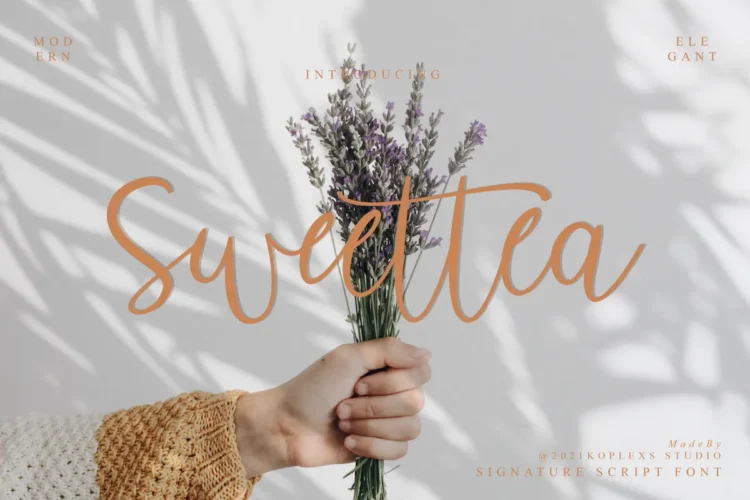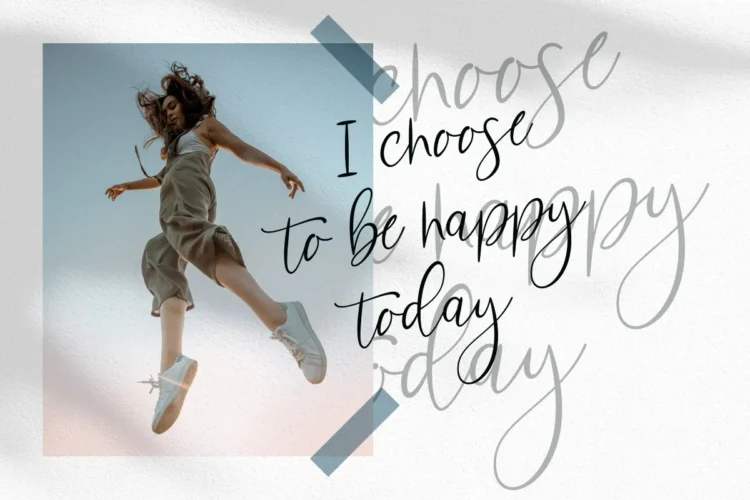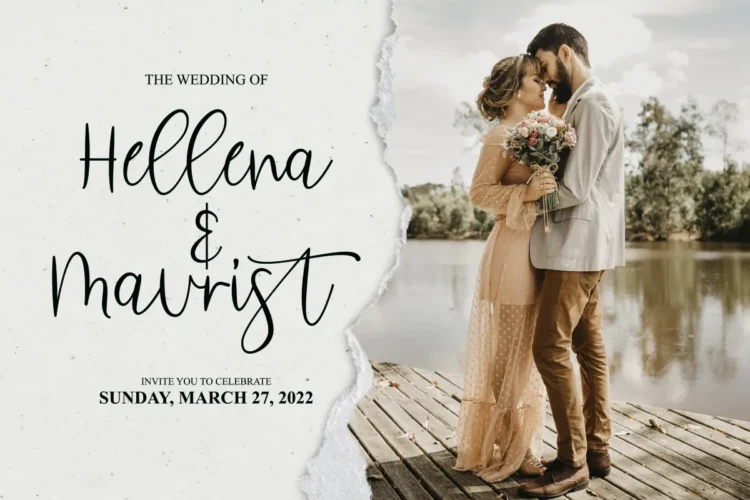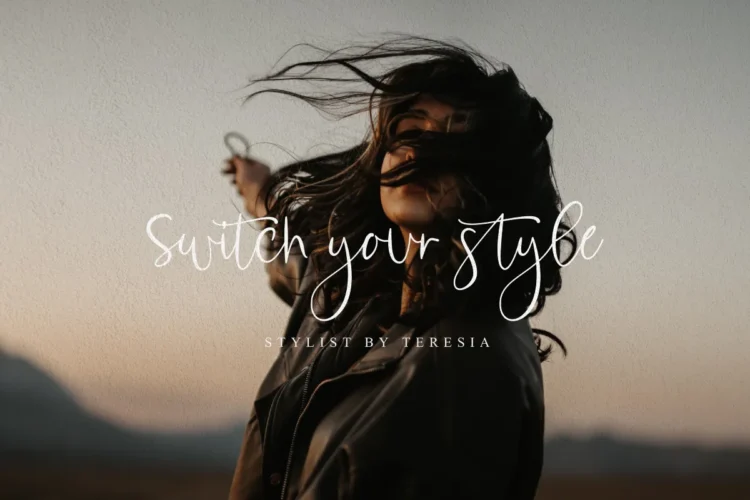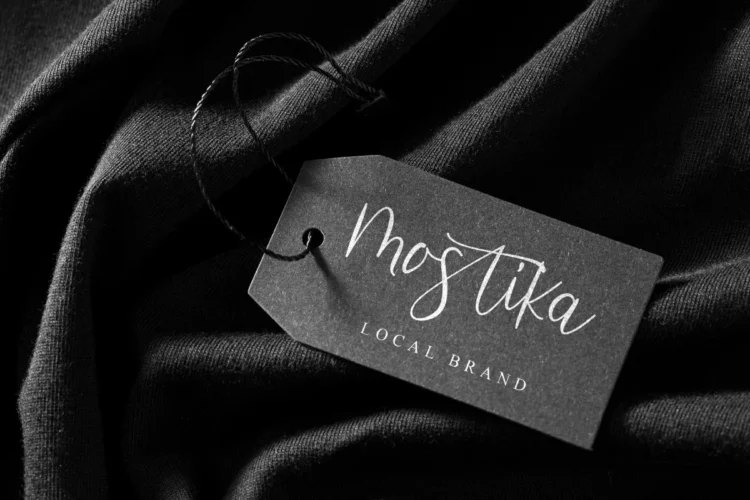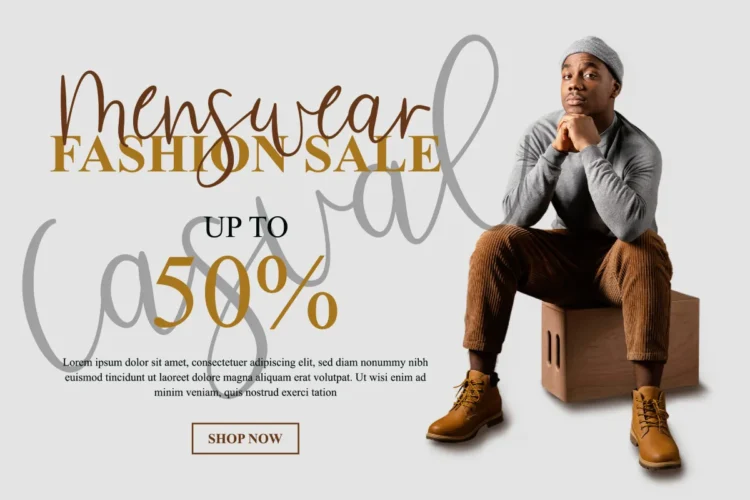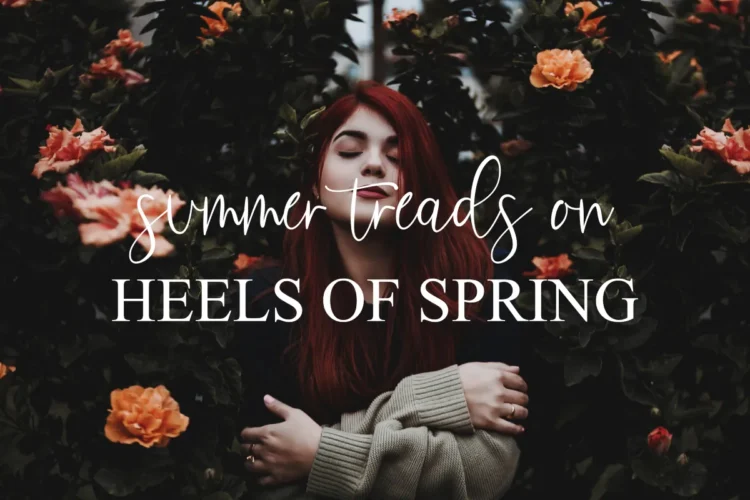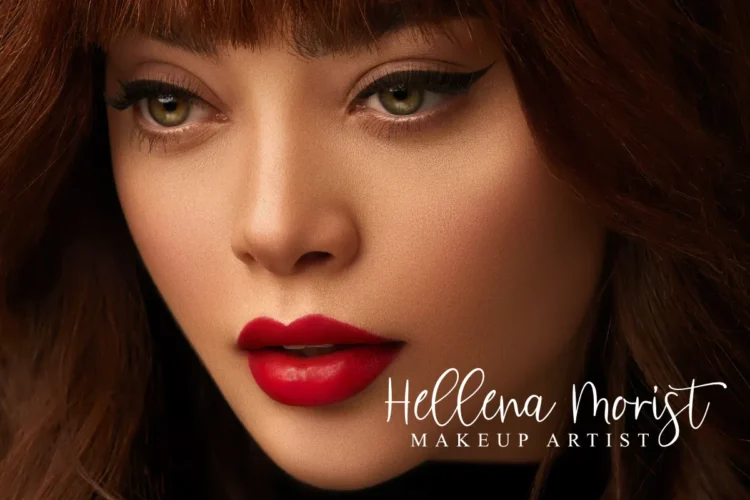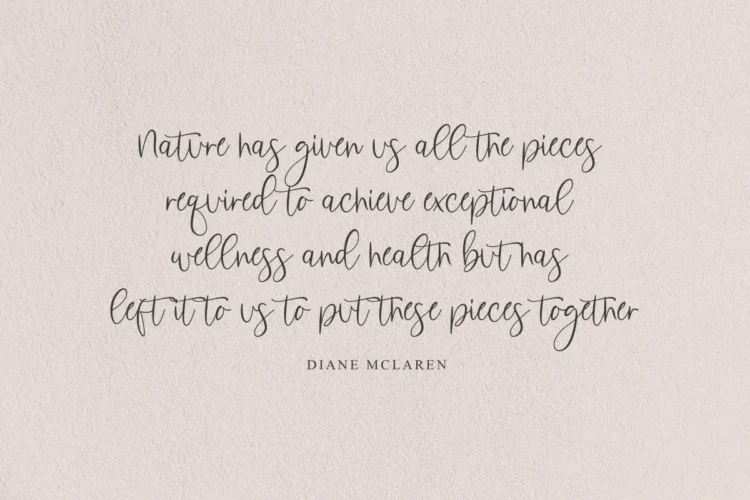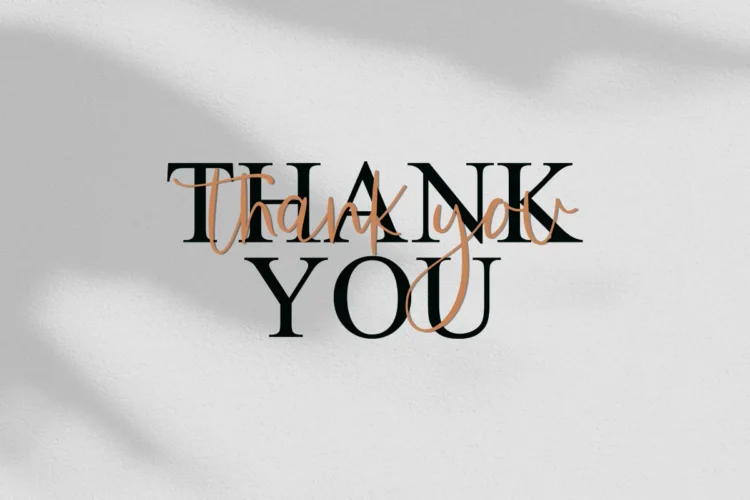
Sweettea Font – Elegant Handwritten Script Font for Branding, Wedding & Luxury Design
Sweettea Font is a stunning Handwritten Font that combines the beauty of Calligraphy Font with the charm of modern elegance. Designed to capture attention, this script font is perfect for creating timeless and stylish designs. Whether you’re crafting a romantic wedding font, a sleek branding font, or a luxurious cosmetic font, Sweettea adds sophistication and personality to every project.
Its flowing strokes and refined ligatures make it one of the most versatile modern fonts. This aesthetic font seamlessly adapts to logo font, luxury font, invitations, packaging, and more. Sweettea brings an elegant balance between casual handwritten beauty and professional design quality.
Sweettea Font Perfect for :
- Wedding invitations & stationery
- Branding & logo design
- Fashion & cosmetic packaging
- Social media posts & quotes
- Business cards & signature branding
- Elegant magazines & lifestyle blogs
- Luxury product design
Bring warmth, charm, and elegance into your projects with Sweettea Font. Elevate your brand, add a romantic touch to weddings, or create standout designs that leave a lasting impression.